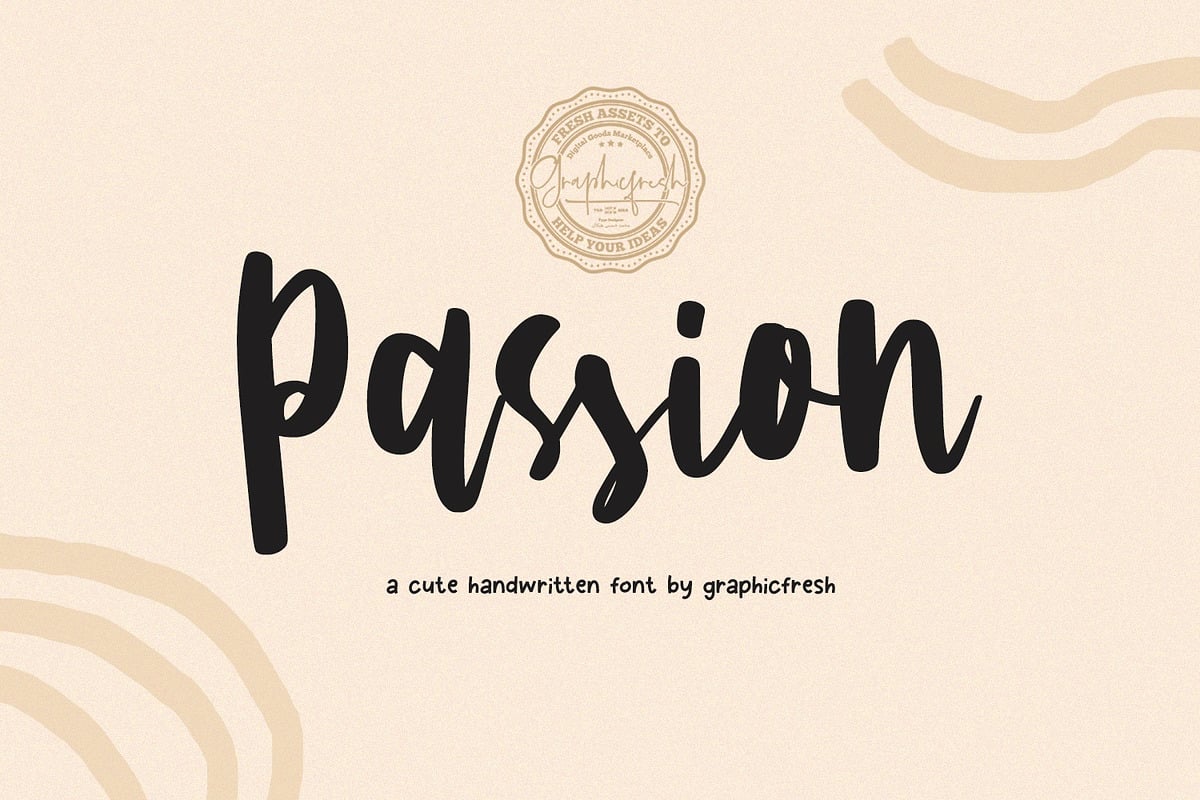
Passion - A Cute Handwritting Font
Meet Passion — the cute, feminine handwritten font that makes every design feel effortlessly charming.
Passion is an elegant script typeface with a sweet, handcrafted personality. Its flowing letterforms are perfectly suited for projects that call for warmth, style, and a personal touch.
This font is ideal for:
- Branding and logotypes
- Wedding invitations and stationery
- Magazines and editorial design
- Mugs, T-shirts, and merchandise
- Business cards and letterheads
- Quotes, posters, and signage
Font Features:
- Uppercase & Lowercase letters
- Numerals & Punctuation
- Ligatures
- International language support